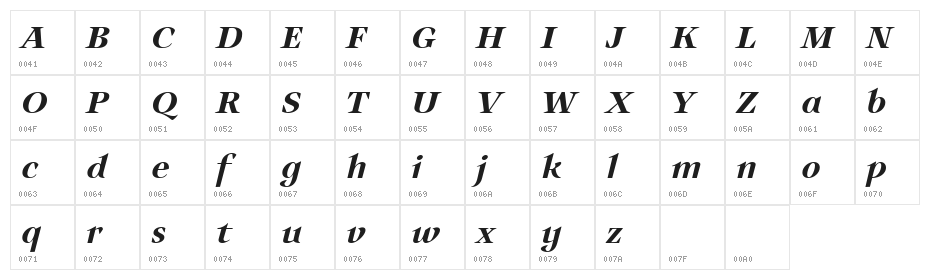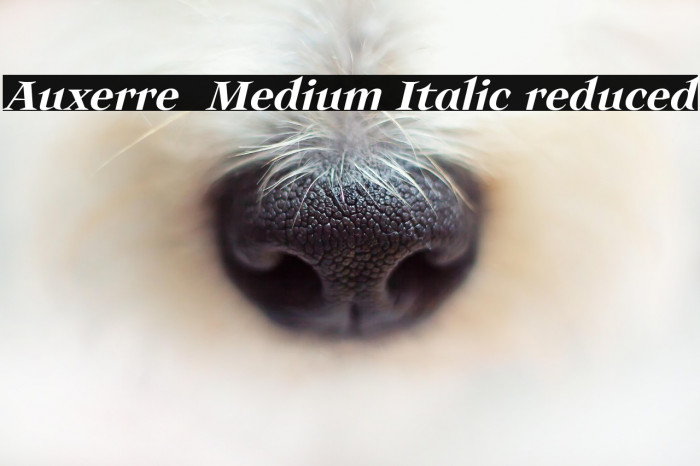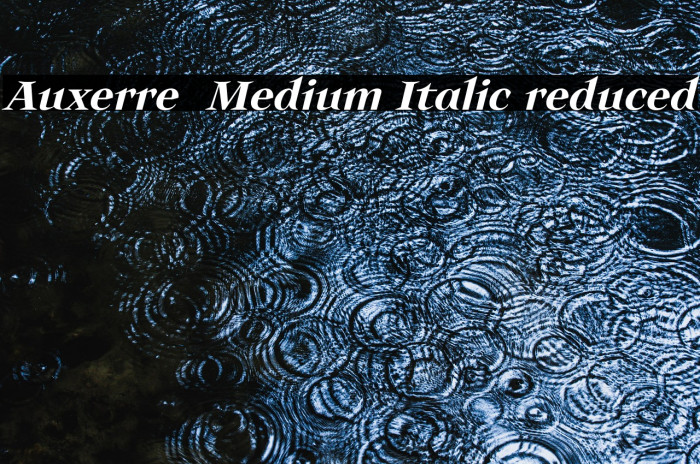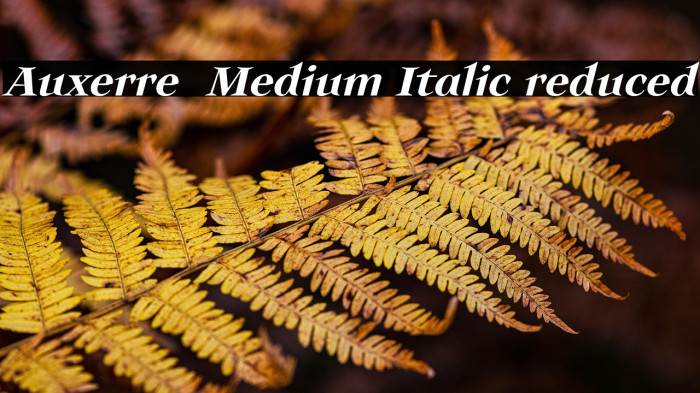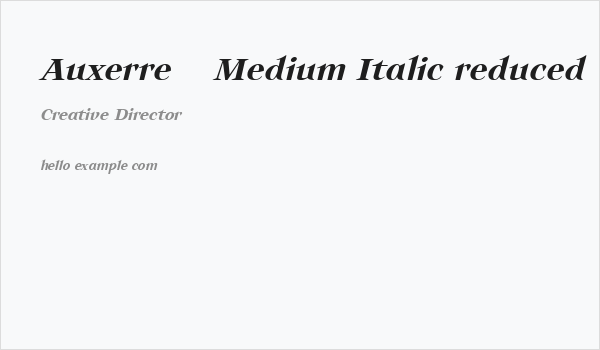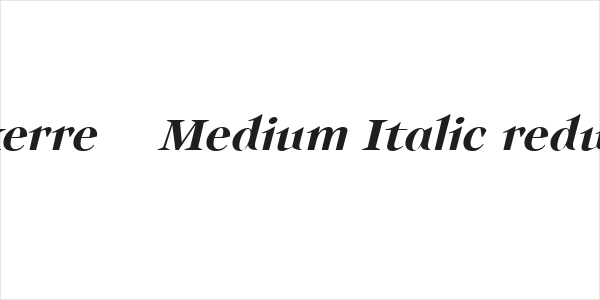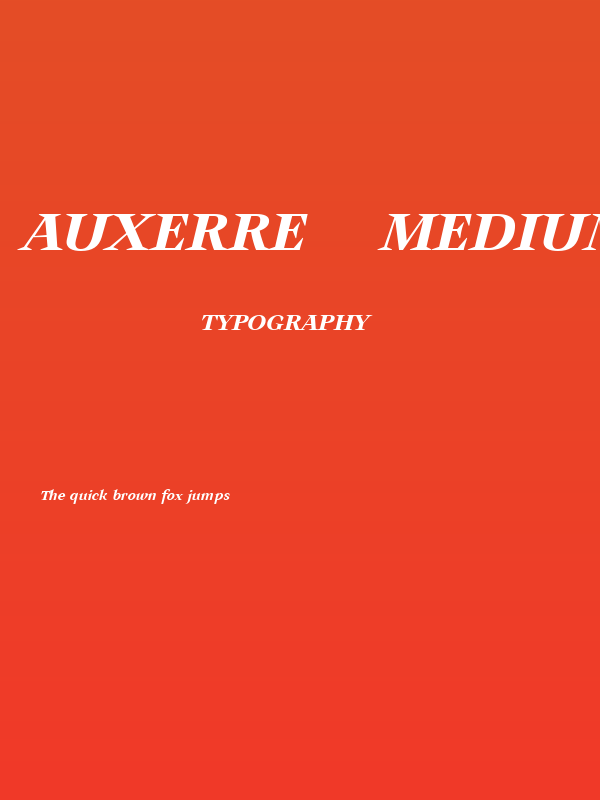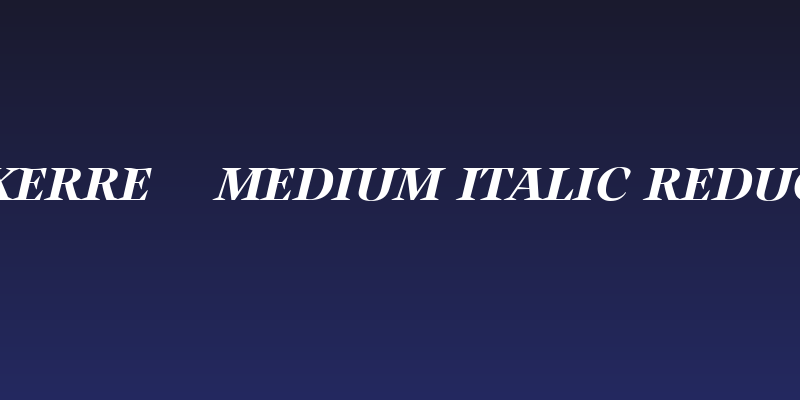
Auxerre 66 Medium Italic reduced Font
Auxerre 66 Medium Italic reduced Description
This font exhibits a classic serif style with a distinct italic slant, giving it an elegant and sophisticated appearance. The characters are well-defined with moderate stroke contrast, enhancing readability while maintaining a stylish flair. The serifs are pronounced, adding a traditional touch to the overall design. The uppercase letters are bold and commanding, while the lowercase letters maintain a graceful flow. The numerals are consistent with the letterforms, ensuring uniformity across text. This font is versatile, suitable for both formal and creative applications, offering a timeless aesthetic that can elevate any design project.